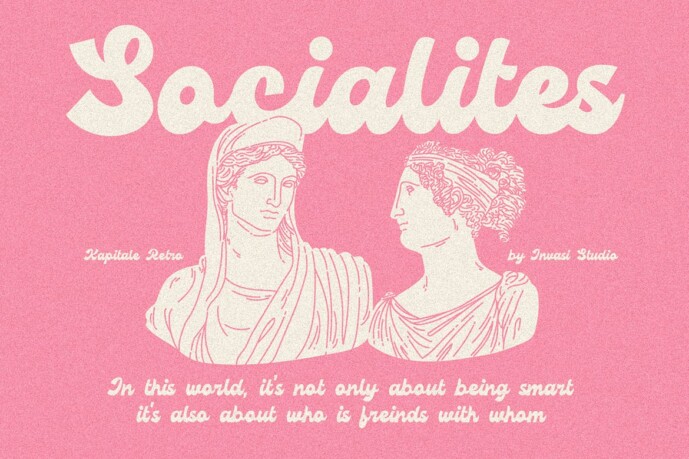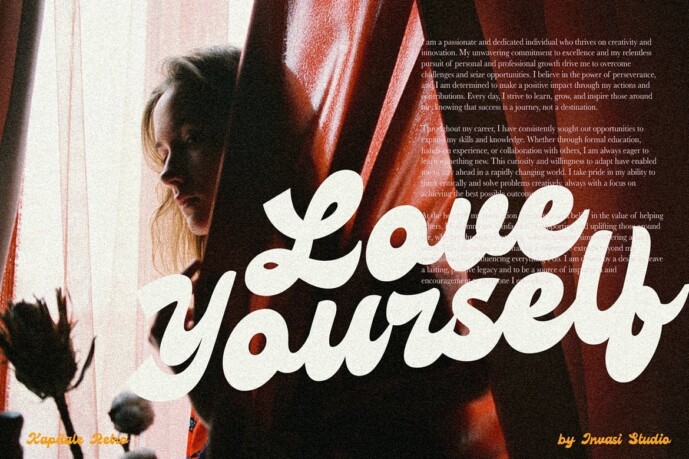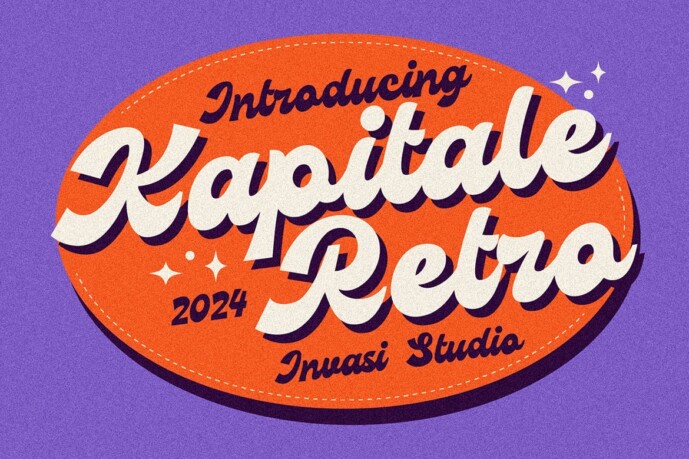
Kapitale Retro Font
Kapitale Font, where retro charm meets a bold, contemporary edge. This dynamic script font combines the funky, rounded shapes of the groovy era with sharp, diagonal glyphs, creating a truly unique style that resonates with designers looking to stand out. Featuring stylistic alternates and versatile multilingual support, Kapitale is perfect for creating eye-catching headlines, vibrant posters, sleek logos, and everything in between. Whether you’re designing nostalgic album covers or modern branding, Kapitale strikes the perfect balance between vintage style and cutting-edge design, making every project a showcase of creativity and style.